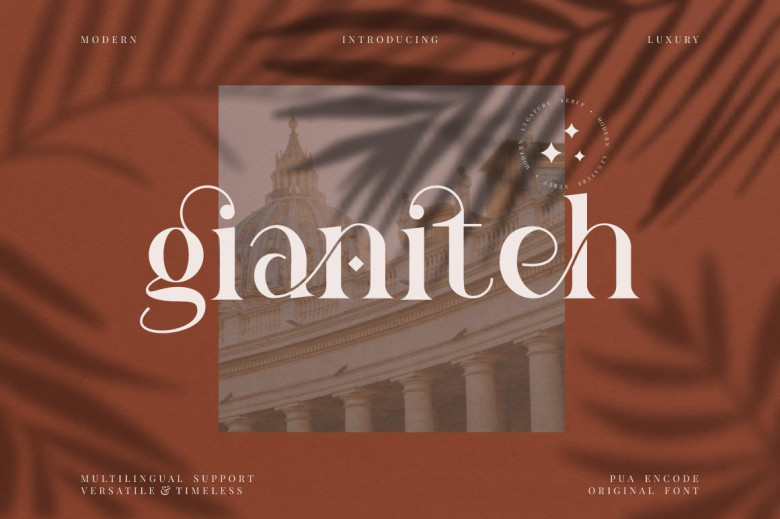
Gianiteh Font
Gianiteh Stylish Serif Font, from FinTypeStudio, is perfect for all kinds of projects like logos, bohemian, household kitsch and packaging of all kinds, mugs & cups with quotes on them and posters in the style among other things.
Gianiteh Modern Serif Font